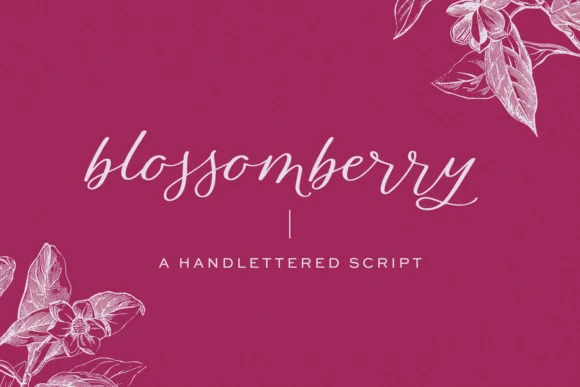
Blossomberry Script Font
Blossomberry Script Font is perfect for romantic spring wedding invitations, charming berry farm branding, delightful bakery packaging, sweet boutique signage, lovely greeting cards, organic beauty product labels, whimsical garden center materials, enchanting children's books, floral arrangement businesses, and beautiful seasonal campaigns.
Blossomberry Script Font is exciting because it perfectly captures the enchanting sweetness and natural beauty of blooming gardens and ripe berries, creating a script typeface that embodies the joy of spring blossoms, the sweetness of fresh fruit, and the delicate charm of nature's most beautiful moments. This font brings botanical sophistication and natural sweetness to any project, making it ideal for brands that want to convey freshness, natural beauty, and the enchanting appeal of garden-fresh quality and seasonal charm. Its blossoming character and berry-sweet appeal create an atmosphere of natural delight that resonates with audiences who appreciate organic beauty and seasonal freshness.
Blossomberry Script Font family includes regular, light, and medium weights, plus botanical flourishes, berry-inspired ornaments, and natural decorative elements, providing designers with comprehensive tools for creating naturally sweet typography and botanically charming brand experiences.
This enchanting botanical script typeface combines natural garden aesthetics with contemporary design functionality, making Blossomberry Script Font Free Download a perfect choice for projects celebrating natural beauty and seasonal sweetness. The font's naturally crafted letterforms feature blossom-like proportions and berry-inspired styling that reflect the organic beauty and sweet freshness of blooming gardens and ripe seasonal fruit.
Whether you're designing organic farm branding, seasonal beauty campaigns, or natural wellness materials, Blossomberry Script Font delivers unmatched botanical authenticity and natural appeal. The font excels in both intimate garden applications and larger seasonal environments where natural beauty and fresh sweetness create memorable organic experiences.
Natural brand professionals choose Blossomberry Script Font for its ability to instantly communicate natural freshness and seasonal beauty while creating emotional connections with audiences seeking organic quality and natural sweetness. The font's botanical character makes it particularly effective for berry farms, organic beauty brands, and seasonal lifestyle companies.
Each character reflects the delicate beauty of spring blossoms, featuring natural curves and sweet proportions that create typography as fresh and beautiful as blooming flowers, ripe berries, and the enchanting sweetness of nature's garden bounty.